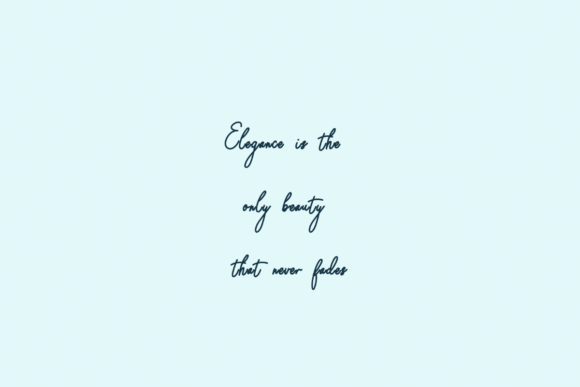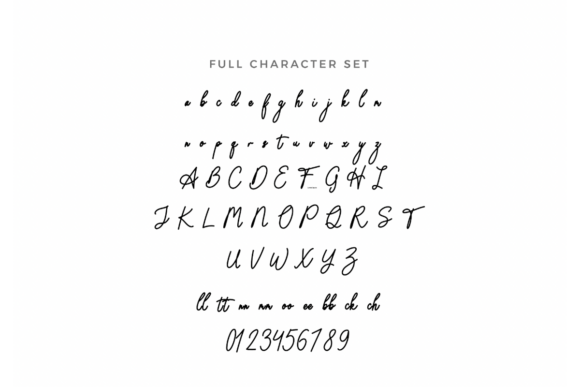
Meet the Ultimate Companion for Designers: Daniella Font
Have you ever been captivated by the whimsical charm of a handwritten note or a beautifully crafted invitation? Those moments often inspire us to create something special, don’t they? For designers, the quest for the perfect font is a continuous journey. That’s where Daniella Font comes in – a masterful blend of artistry and elegance that elevates any project to new heights.
As a script font that seamlessly combines the beauty of handwritten and hand-lettered design, Daniella Font brings a touch of sophistication and love to every project it touches. Whether you’re crafting a wedding invitation, designing a logo, or creating a branding package, Daniella Font is the perfect companion to help you achieve your design goals.
- Font Family: Daniella, Daniella Sans, Daniella Script
- Unique Characteristics: Elegant, modern script font with intricate details and flowing connections between letters
Daniella Font Review
Overall, I’m quite impressed with Daniella Font, but as with any typeface, it’s not without its strengths and weaknesses.
- Beauty and elegance: Daniella Font exudes a sense of sophistication and refinement, making it perfect for high-end branding and luxury goods.
- Legibility: The font is highly legible, even at smaller sizes, which is crucial for any text-based design.
- Flexibility: Daniella Font works well in various settings, from body text to headings, and can be easily customized for different applications.
- Lack of diversity: The font is quite consistent, which can be both a strength and a weakness. In some cases, it may feel too uniform or lack character.
- Not suitable for informal designs: Daniella Font is best suited for formal or professional projects; it may not be the best choice for casual or creative designs.
Daniella Font is a solid choice for designers looking for a high-end, elegant typeface. While it may not be the most versatile or unique font, it’s certainly a reliable and effective option for a wide range of applications.
Getting the Most Out of Daniella Font
To get the most out of Daniella Font, try the following:
- Use Daniella Font in combination with other fonts to create a unique and visually appealing design.
- Use Daniella Font for headings and titles to add emphasis and hierarchy to your design.
Daniella Font is commonly used for:
- Editorial and design publications.
Alternatives to Daniella Font for Designers
Carolyna Pro is a modern sans-serif font that is perfect for creating a clean and professional look. It has a similar feel to Daniella Font, but with a more geometric and sophisticated design. Use Carolyna Pro for business cards, brochures, and other marketing materials where a modern and sleek look is desired.
Comparison to Daniella Font: Carolyna Pro is more geometric and has a more modern feel than Daniella Font, which has a softer and more elegant design.
Great Vibes is a beautiful script font that is ideal for creating a personal and elegant look. It has a more whimsical and creative feel than Daniella Font, which makes it perfect for wedding invitations, greeting cards, and other special occasions.
Comparison to Daniella Font: Great Vibes is more playful and creative than Daniella Font, which has a more classic and sophisticated design.
Alex Brush is a elegant script font that is perfect for creating a sophisticated and romantic look. It has a similar feel to Daniella Font, but with a more refined and luxurious design. Use Alex Brush for wedding invitations, special occasion cards, and other materials where a high-end and elegant look is desired.
Comparison to Daniella Font: Alex Brush is more refined and luxurious than Daniella Font, which has a softer and more classic design.